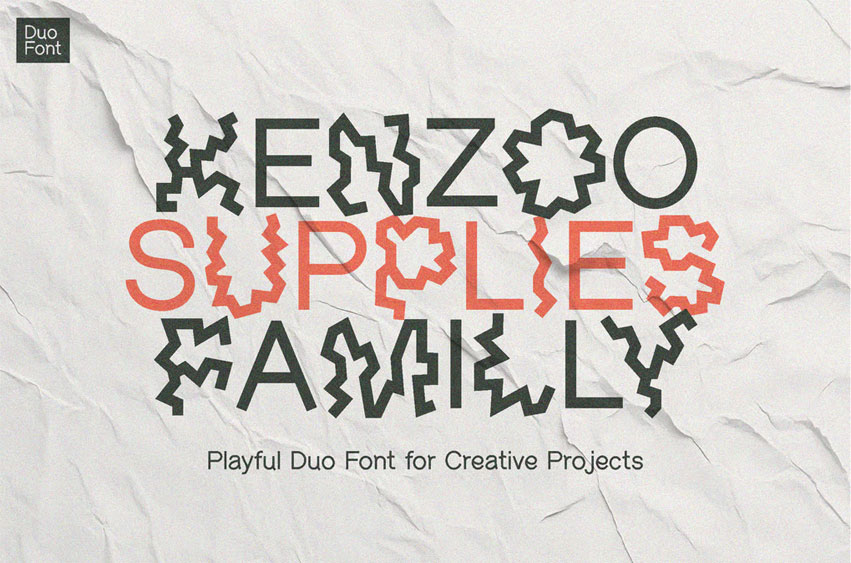
Kenzoo Supplies Font
Kenzoo Supplies Font Family is a duo font featuring two distinct styles in one package: Kenzoo Supplies Sans Serif, a clean and modern typeface, and Kenzoo Supplies Zigzag, a quirky and energetic design. This playful yet professional pairing is perfect for branding, packaging, posters, and social media projects.
The fonts include uppercase & lowercase letters, numbers, punctuation, and multilingual support, making them versatile for a wide range of creative applications.
Whether used together or separately, Kenzoo Supplies Family brings a fresh balance of modern simplicity and fun personality to any design.